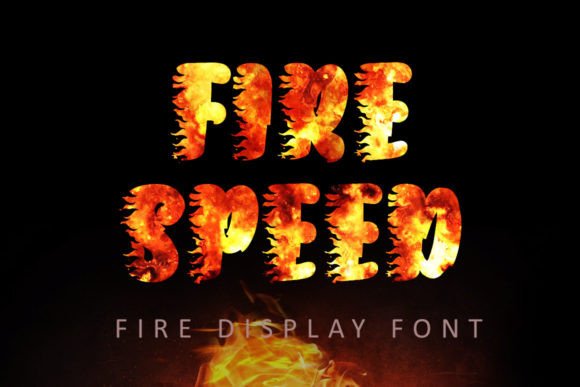
Behold Fire Speed, the font that's destined to ignite your digital creations with fiery brilliance! This captivating display font, crafted with meticulous precision by the renowned Mr.Soon Design, is a masterpiece that will elevate your designs to unprecedented heights.
Fire Speed is not just a font; it's an experience. Its bold and dynamic characters dance across the screen, commanding attention and leaving an indelible impression. Whether you're crafting a fashion website, designing a captivating logo, or creating eye-catching social media graphics, Fire Speed is the perfect font to ignite your creativity and set your designs ablaze.
Step into a world of limitless possibilities with Fire Speed. Its versatility knows no bounds, adapting seamlessly to a myriad of design aesthetics. From sleek and modern to playful and whimsical, Fire Speed effortlessly complements your vision, adding a touch of elegance and sophistication to every project.
With Fire Speed, clarity meets creativity. Its meticulously crafted letterforms ensure effortless readability, even at smaller sizes. Experience the joy of seamless communication as your messages shine through with unwavering precision.
But Fire Speed is more than just a functional font; it's an emotional powerhouse. Its dynamic strokes convey a sense of energy and movement, evoking a whirlwind of emotions in your audience. Prepare to captivate and engage your readers, leaving them spellbound by the sheer brilliance of your designs.
So, embrace the fiery passion of Fire Speed and watch as your creative endeavors take flight. Let this extraordinary font ignite your imagination and propel your designs to new heights. Unleash the power of Fire Speed and set the digital world ablaze with your creativity!